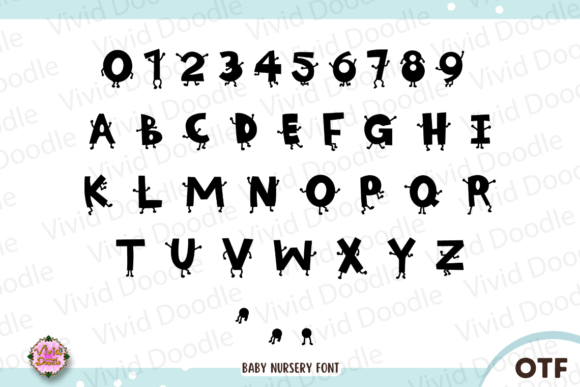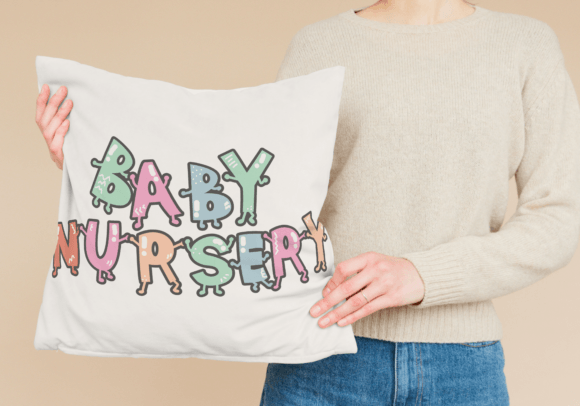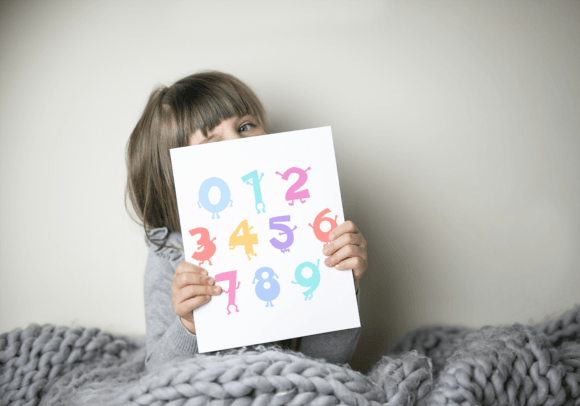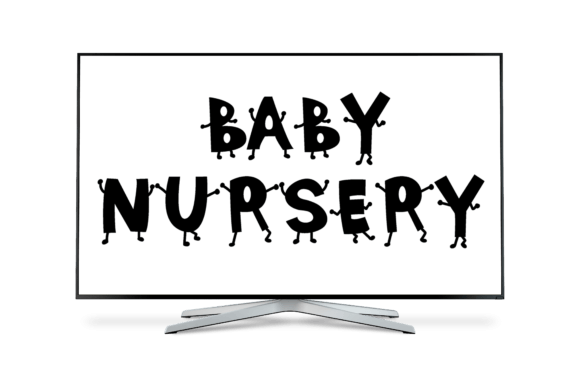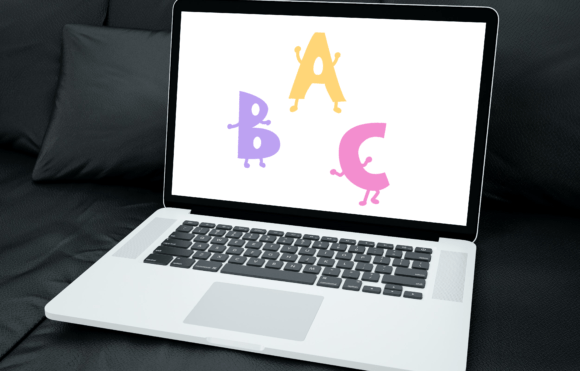
Baby-Nursery Font: The Perfect Typeface for Whimsical Educational Designs
Are you a designer, teacher, or crafter looking for a font that captures the essence of childhood and learning? Look no further than the Baby-Nursery font, a charming and playful typeface designed specifically for school-related designs, kids’ materials, kindergarten projects, teacher-related content, nurseries, and more.
A Sweet and Friendly Design
Each letter in the Baby-Nursery font is crafted with a sweet and friendly design, making it perfect for creating a warm and inviting atmosphere in educational contexts. The font’s playful and whimsical nature is sure to delight children and adults alike, making it an ideal choice for a wide range of applications.
Perfect for Educational Designs
The Baby-Nursery font is designed to bring a sense of joy and wonder to educational designs. Whether you’re creating materials for a kindergarten classroom, designing a logo for a children’s educational program, or crafting invitations for a nursery school event, this font is sure to make your creations stand out.
Key Features of the Baby-Nursery Font
- Playful and whimsical design: Each letter is carefully crafted to create a sense of fun and playfulness.
- Sweet and friendly feel: The font’s design is sure to evoke a sense of warmth and approachability.
- Perfect for educational contexts: The font is designed specifically for use in educational settings, making it ideal for school-related designs, kids’ materials, kindergarten projects, and more.
- Versatile and adaptable: The Baby-Nursery font can be used in a wide range of applications, from digital designs to print materials.
Ideas for Using the Baby-Nursery Font
The Baby-Nursery font is a versatile typeface that can be used in a wide range of applications. Here are a few ideas to get you started:
- Kindergarten classroom materials: Use the Baby-Nursery font to create engaging and interactive materials for kindergarten classrooms, such as alphabet charts, number lines, and shape posters.
- Children’s educational programs: Design logos, brochures, and other marketing materials for children’s educational programs using the Baby-Nursery font.
- Nursery school events: Create invitations, flyers, and other promotional materials for nursery school events using the Baby-Nursery font.
- Kids’ party decorations: Use the Baby-Nursery font to create custom party decorations, such as banners, garlands, and cupcake toppers.
Tips for Getting the Most Out of the Baby-Nursery Font
To get the most out of the Baby-Nursery font, here are a few tips:
- Experiment with different colors: The Baby-Nursery font looks great in a wide range of colors, so don’t be afraid to experiment and find the perfect hue for your design.
- Pair with other fonts: The Baby-Nursery font pairs well with other playful and whimsical fonts, so try combining it with other typefaces to create a unique and eye-catching design.
- Use it consistently: To create a cohesive and professional-looking design, use the Baby-Nursery font consistently throughout your project.
The Baby-Nursery font is a charming and playful typeface that’s perfect for creating engaging and interactive educational designs. With its sweet and friendly design, this font is sure to delight children and adults alike. Whether you’re a designer, teacher, or crafter, the Baby-Nursery font is a versatile and adaptable typeface that’s sure to bring a sense of joy and wonder to your creations.